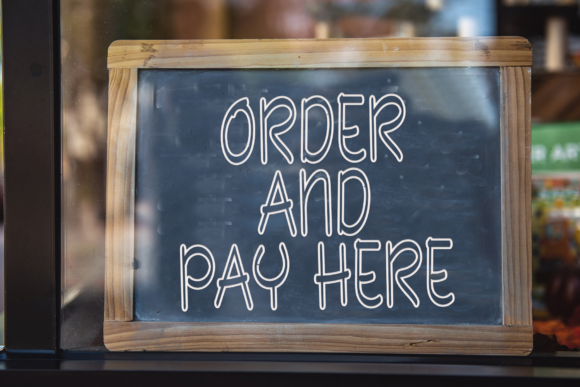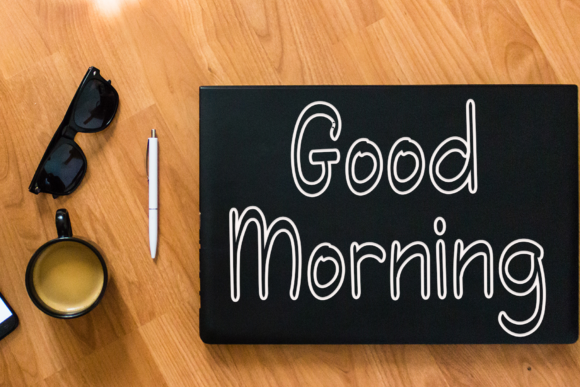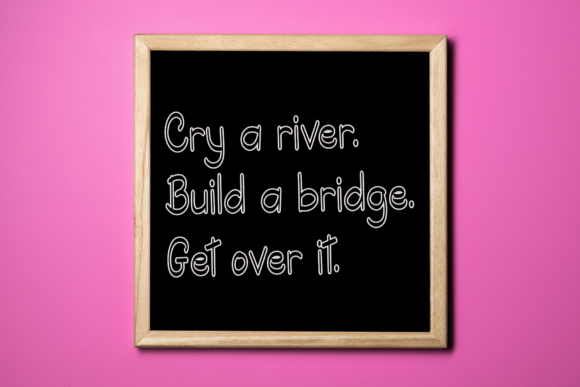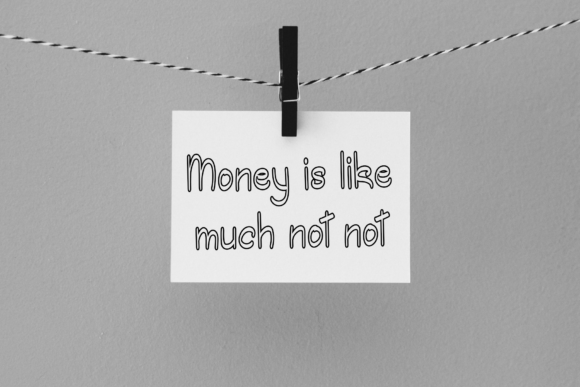
Sunday Monday Font
About Sunday Monday Font
Sunday Monday is a wonderful handwritten font existing with only the simple outline of each letter. It will look great on a chalkboard!